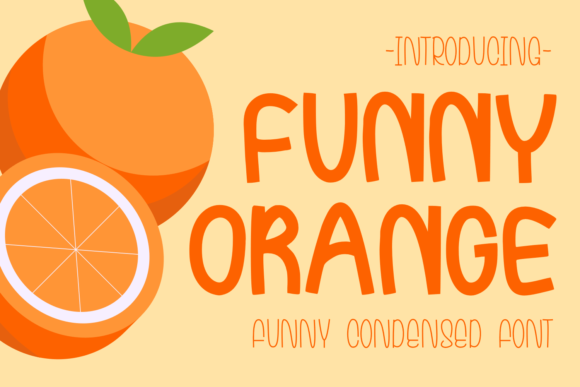
Journey into a world of delightful charm and whimsical expression with Funny Orange Font, an extraordinary creation from Hasana Store. This display font captivates hearts with its endearing letterforms, designed to evoke smiles and add a dash of playful magic to your digital creations.
Conceived specifically for baby businesses, Funny Orange is the perfect font for injecting a sense of joy and lightheartedness into your branding, marketing, and design projects. Its neat lettering and playful curves exude a welcoming aura that instantly connects with your target audience.
Picture yourself crafting captivating logos that radiate warmth and charm, evoking the innocent wonder of childhood. Create eye-catching posters and flyers that invite customers into a world of imagination, where vibrant colors and playful illustrations dance together in perfect harmony.
Imagine designing children's books that come alive with Funny Orange's friendly characters, engaging young readers in a world of adventure and wonder. This font possesses an uncanny ability to transport readers into a realm where dreams take flight and imagination knows no bounds.
With Funny Orange, you can create enchanting social media posts and graphics that capture the attention of your audience, leaving an unforgettable impression. Its whimsical nature lends itself perfectly to creating visually stunning quotes, memes, and engaging content that resonates with your followers.
Funny Orange is not just a font; it's an invitation to unleash your inner child and embrace the joy of creativity. Its versatility extends beyond baby-related projects, making it an excellent choice for injecting a touch of whimsy into greeting cards, party invitations, and even product packaging.